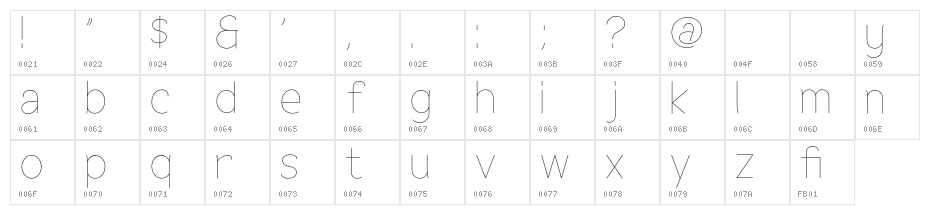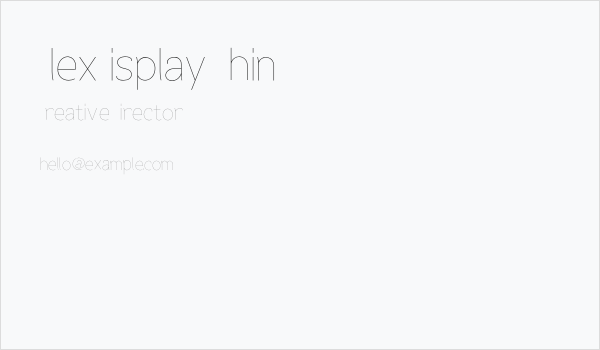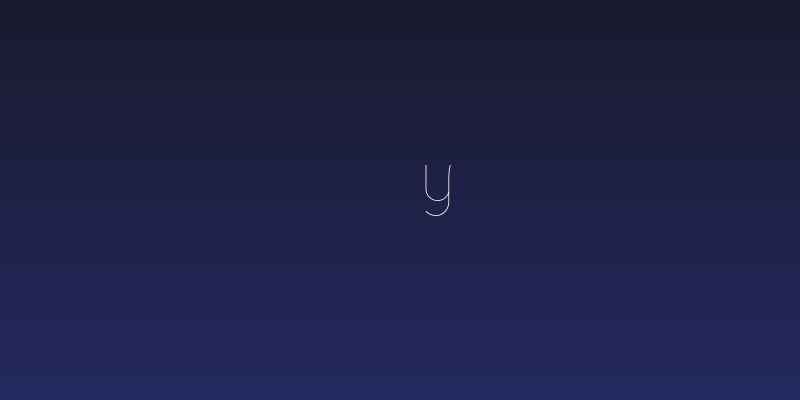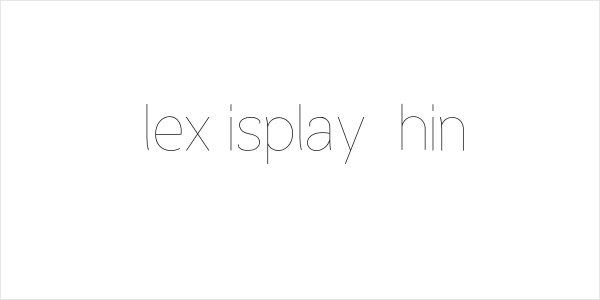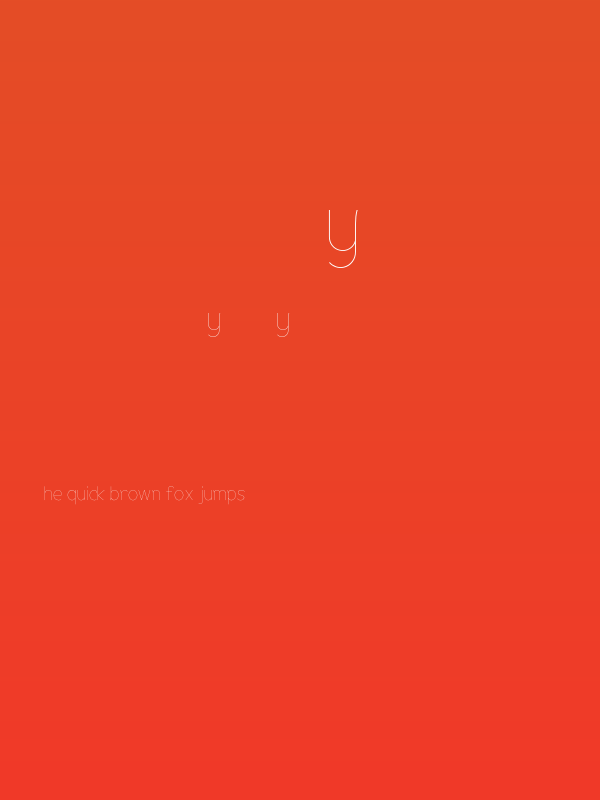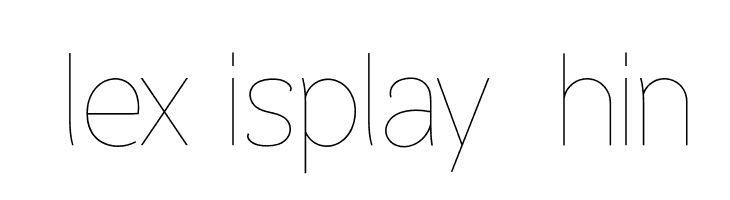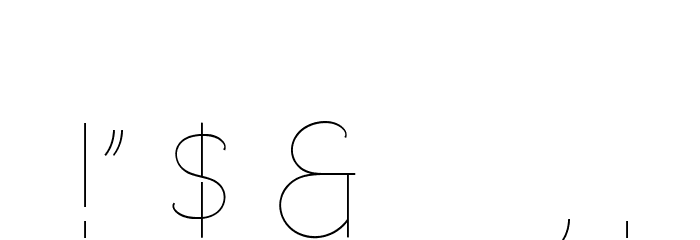
FlexDisplay-Thin Font
FlexDisplay-Thin Description
This typeface features a sleek, ultra-thin design that emphasizes minimalism and modernity. The characters are crafted with precision, showcasing a uniform stroke width that maintains clarity and elegance. The uppercase letters are tall and slender, while the lowercase letters maintain a consistent height, contributing to a harmonious appearance. The numerals and special characters are designed to match the overall aesthetic, ensuring a cohesive look across all text. This font's simplicity and clean lines make it versatile for various design applications.
| Proposed Projects | Ideal for modern branding, minimalist posters, sleek website headers, and contemporary product packaging. |